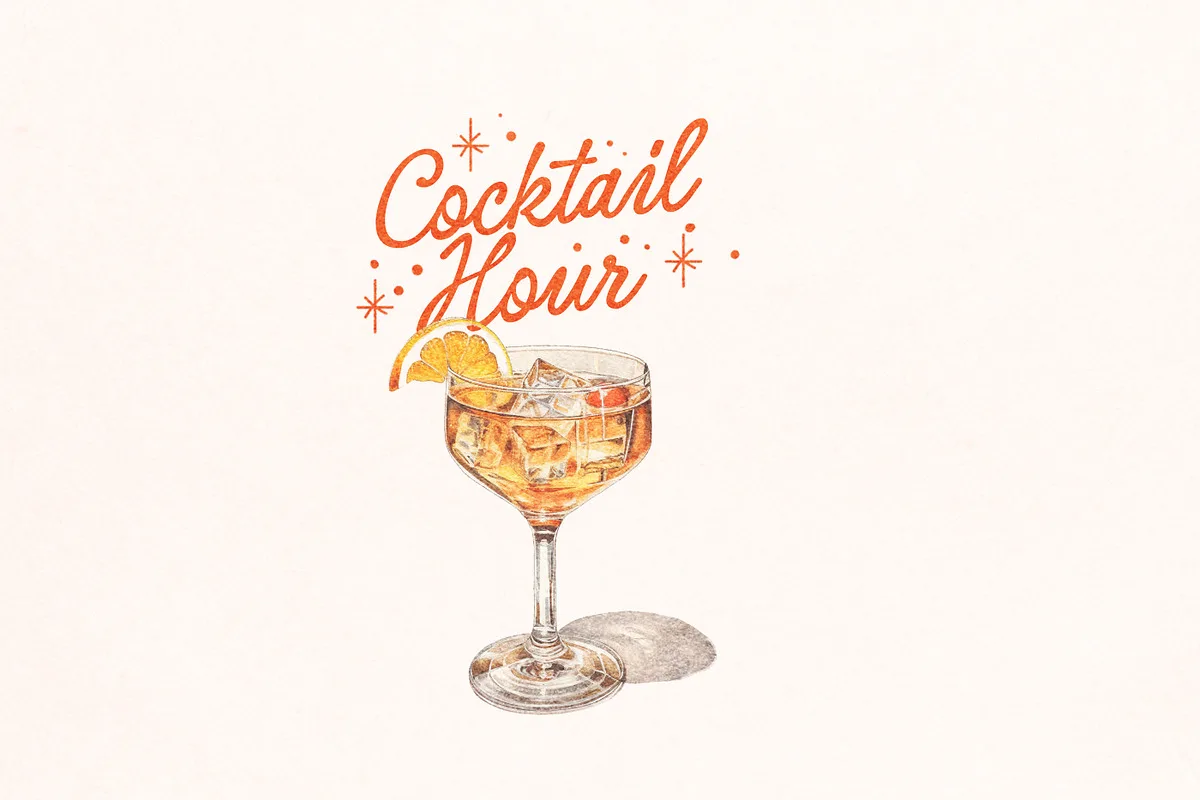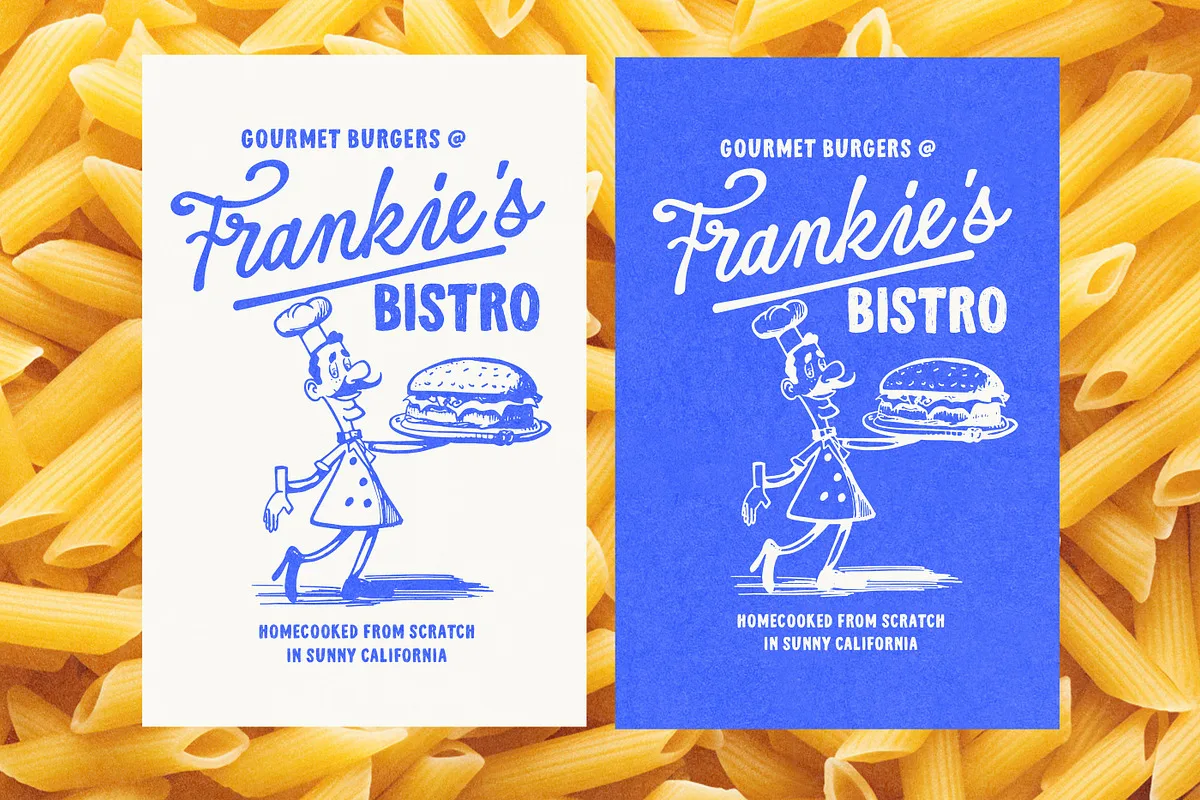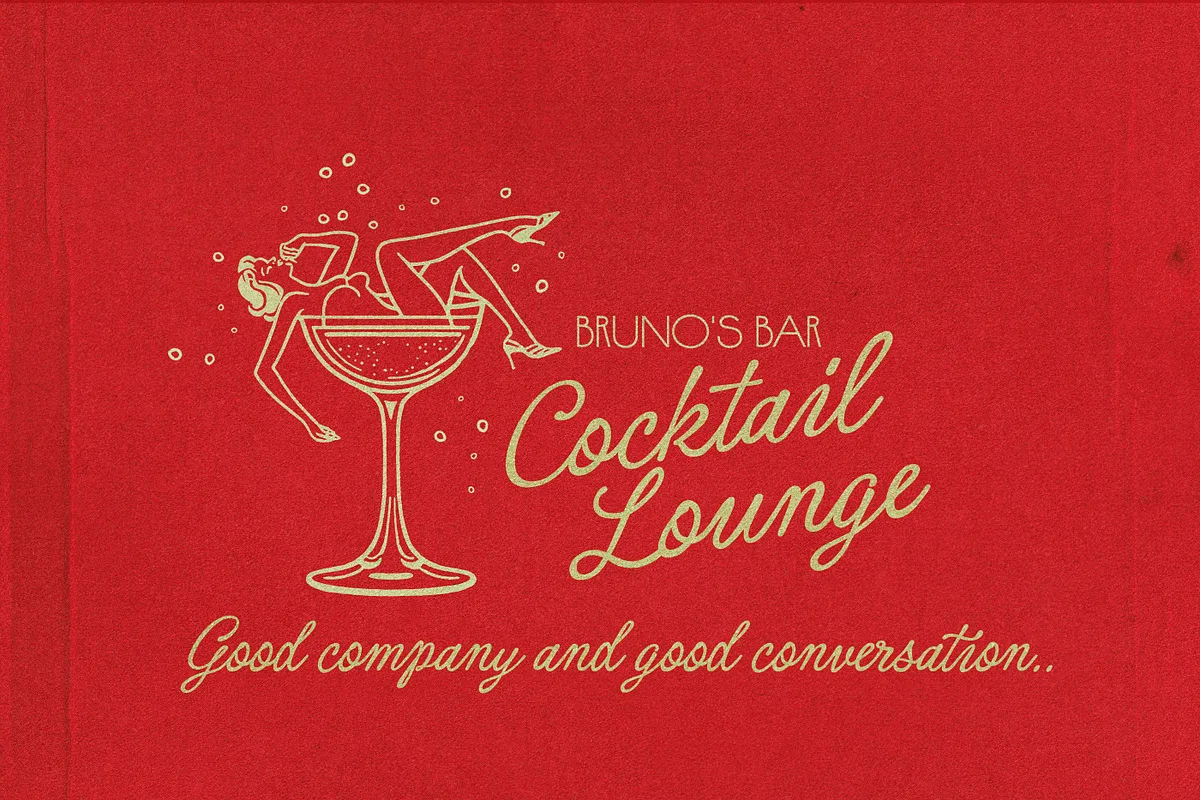
Amaretti is a smooth calligraphic script that was designed to be reminiscent of vintage hand-lettered advertising or signage from the 50s , which often encorporated elaborate scripts to catch the eye and evoke a sense of nostalgia, fondness and warmth.
With it’s sumptious swirls, it conveys a playful and light-hearted tone, with sweeping curves and flourishes, to add to the vibrant and upbeat feel to your projects. The Typeface includes 3 weights, and a oblique version of each.
The font also includes many whimsical and expressive Opentype alternates, ligatures and swashes, see the character set preview above to have a glimpse of them all.
Amaretti Script Font